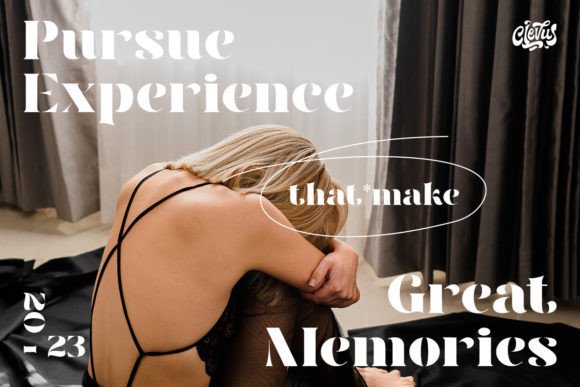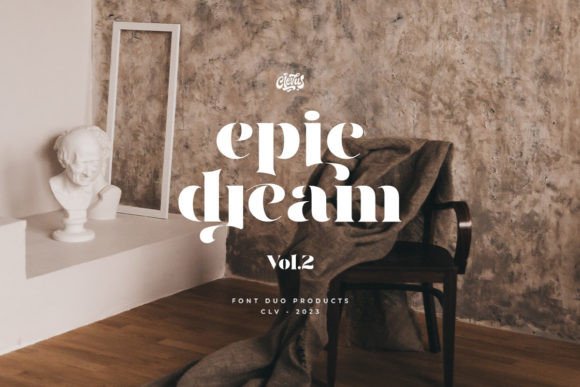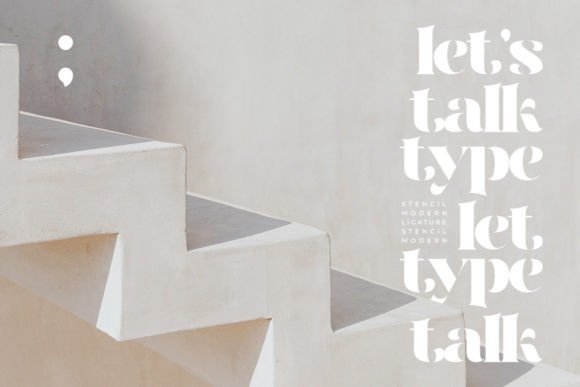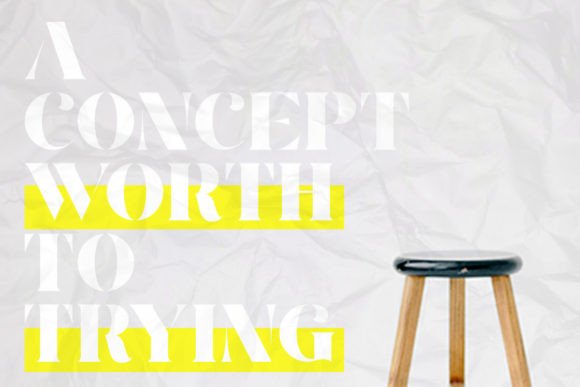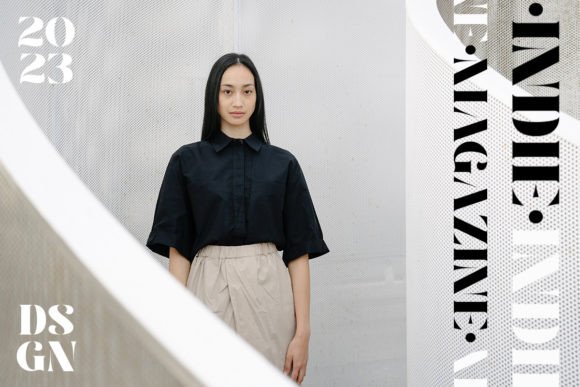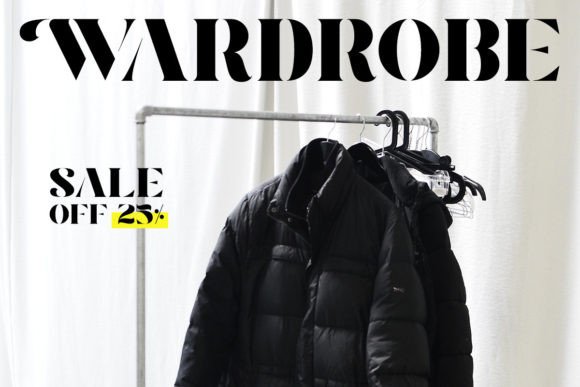
Introduction to Faya Font
You’re staring at your computer screen, brainstorming ideas for your latest creative project, and suddenly, the perfect font pops into your mind. It’s bold, it’s elegant, and it’s got that extra oomph to make your design stand out. For many designers, finding the right font can be a game-changer. That’s where Faya Font comes in – a luxurious, modern serif font that’s sure to elevate your design to the next level.
Whether you’re working on a high-quality logo, a free download for a client, or a complex design project, Faya Font is the perfect design resource to have in your arsenal. Its unique blend of classic refinement and modern styling makes it a timeless choice that will never go out of style. With its bold serifs and heavy strokes, Faya Font is perfect for titles, logos, and headlines, while its crisp, clean lines lend a sophisticated air that’s hard to resist.
As a designer, you know how valuable a great font can be. With Faya Font, you can add a touch of sophistication and elegance to your design, making it perfect for any creative project. Plus, with its transparent background, you can easily customize it to fit your needs. So, what are you waiting for? Dive into the world of Faya Font and discover a whole new level of design possibilities.
Key Features of Faya Font
- High-quality design resource ideal for creative projects, offering a unique and stylish look.
- Unique characteristics include a modern aesthetic, clean lines, and a versatile design that can be used for a range of creative projects.
- Perfect for designers and artists looking for a high-quality design resource to elevate their work.
Honest Review: Faya Font
- What works well: ✨ The Faya Font offers a modern and sleek design that can work well for a variety of projects. The font is also available in multiple formats, including EPS, OTF, and TTF.
- What works well: ✨ The font’s transparent background makes it easy to use on any design background.
- What works well: ✨ The Faya Font is highly customizable, allowing designers to adjust the font’s size, color, and style to suit their needs.
However, I do have a few limitations to note: ⚠️ The font’s character set is limited, which may not be ideal for projects that require a wide range of characters. Additionally, the font’s license is not entirely clear, which may raise concerns for some designers.
Overall, the Faya Font is a solid addition to any designer’s toolkit. While it may have some limitations, its high-quality design and versatility make it a great option for creative projects. I would recommend giving it a try and seeing how it works for your specific needs.
Faya Font
The Faya Font is a versatile and high-quality design resource ideal for various creative projects. To get the most out of it, follow these steps:
The Faya Font is perfect for:
- Designing logos and branding materials
- Creating social media graphics and posts
- Adding custom text to presentations and documents